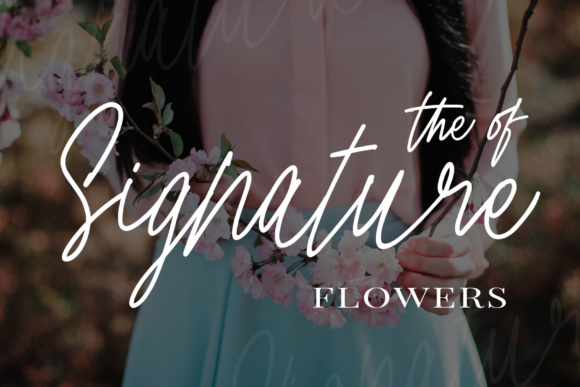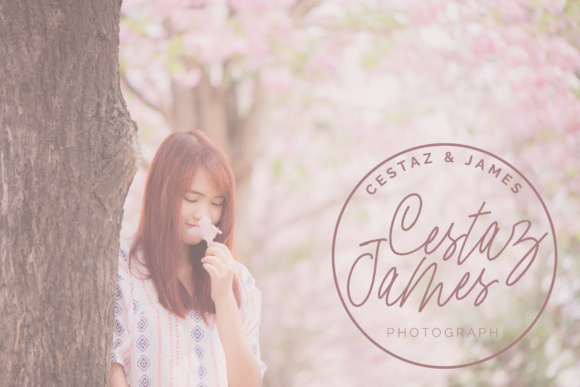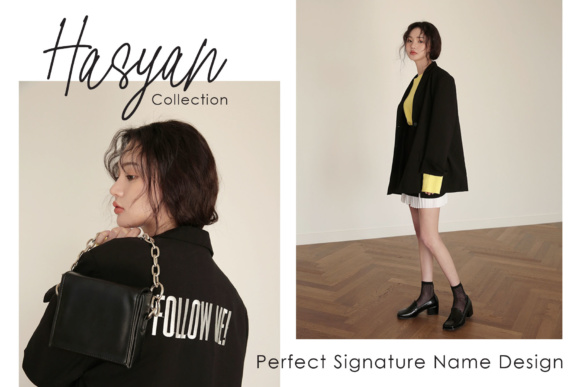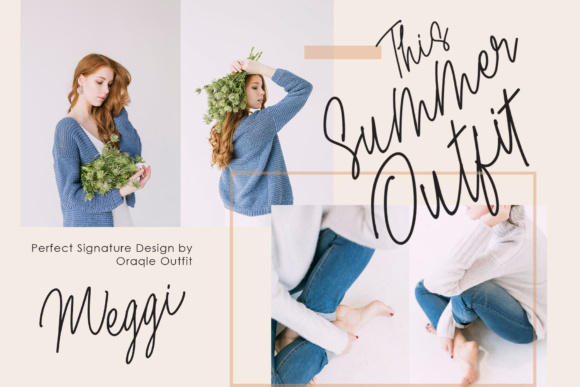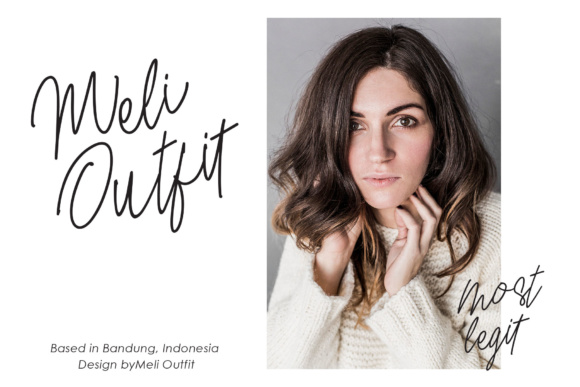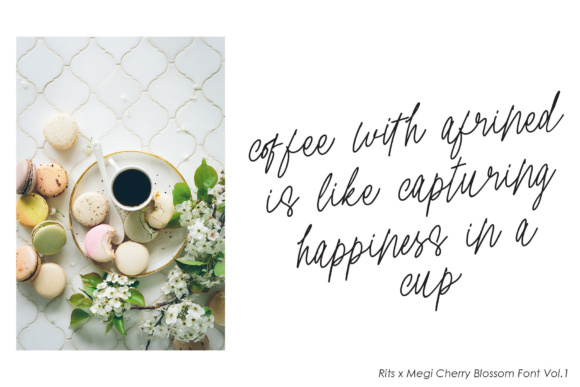
A Fresh Bloom in the World of Typography
Have you ever found yourself sitting in a serene garden, surrounded by vibrant flowers, and suddenly, the creative juices start flowing? That’s exactly what happened to our team when we stumbled upon the enchanting Cherry Blossom Font. This beautiful, handmade calligraphy font is a breath of fresh air in the world of typography.
As a versatile and clean font, Cherry Blossom Font can be effortlessly incorporated into various designs, from quotes and wedding invitations to posters and more. Its bouncy and elegant feel makes it an ideal choice for designers looking to add a touch of whimsy to their projects.
For designers, the Cherry Blossom Font offers a unique opportunity to elevate their designs and stand out from the crowd. With its fresh and playful vibe, this font is sure to become a favorite among creatives looking to add a little magic to their work.
Key Features of Cherry Blossom Font
- Font Family: Cherry Blossom is a script font, designed to resemble handwritten text.
- Unique Characteristics: Cherry Blossom features a delicate, flowing design with subtle flourishes and connectors, giving it a feminine and elegant feel.
- Language Support: The font supports a wide range of languages, including Latin, Cyrillic, and Greek alphabets, making it a versatile choice for multilingual projects.
Cherry Blossom Font Review
Overall, I found the Cherry Blossom Font to be a unique and charming addition to any design project.
- Whimsical feel: The font’s playful, cursive design is perfect for adding a touch of whimsy to headings or titles.
- Delicate details: The intricate, hand-drawn style of the font is sure to catch the eye and leave a lasting impression.
- Perfect for spring and summer projects: The cherry blossom theme is a great fit for seasonal designs, such as Valentine’s Day, Easter, or summer wedding invitations.
- Limited legibility: The font’s delicate design can make it difficult to read at smaller sizes or in low-contrast backgrounds.
- Not ideal for body text: Due to its cursive nature, the font may not be the best choice for large blocks of text, as it can be difficult to read and may appear cluttered.
Overall, the Cherry Blossom Font is a great choice for designers looking to add a touch of personality and whimsy to their projects. While it may have some limitations, its unique design and charm make it a great addition to any design arsenal.
Cherry Blossom Font Practical Application Guide
To get the most out of the Cherry Blossom font, use it for titles, headings, and decorative text. It pairs well with floral patterns and pastel colors.
Use the Cherry Blossom font for hand-drawn or watercolor-inspired designs. It adds a whimsical touch to your artwork.
Use the Cherry Blossom font for titles, headings, and decorative text in presentations and documents. It adds a touch of elegance and sophistication.
The Cherry Blossom font is ideal for:
Floral-inspired designs and artwork
Spring-themed presentations and documents
Any design that requires a whimsical and elegant touch
Alternative Fonts to Cherry Blossom Font
Font 1: Pacifico
Pacifico is a beautiful, elegant script font that is perfect for creating a romantic and whimsical atmosphere. It is ideal for use in wedding invitations, greeting cards, and other special occasions. When compared to Cherry Blossom Font, Pacifico has a more refined and sophisticated look, making it a great choice for designers who want to add a touch of class to their designs.
Font 2: Great Vibes
Great Vibes is a modern, handwritten font that is great for creating a casual and friendly vibe. It is perfect for use in social media graphics, blog posts, and other online content. Compared to Cherry Blossom Font, Great Vibes has a more relaxed and informal look, making it a great choice for designers who want to add a touch of personality to their designs.
The recommended font size for the Cherry Blossom Font is between 12pt and 24pt, depending on the design context. For optimal readability, we recommend a line height of at least 1.5 times the font size. This will ensure the delicate script lines of the font are not overcrowded and maintain their aesthetic appeal.